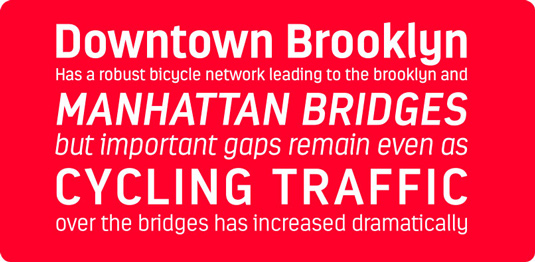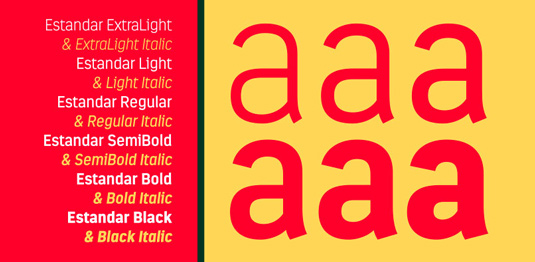
Font of the day: Estandar
Estandar by Luciano Vergara
Today's font of choice, Estandar, was created by graphic and type designer Luciano Vergara. Available from HypeForType, the Estandar is described as being 'a retro and vintage wayfinding sans serif font, inspired by old signage in central park and Europe'.